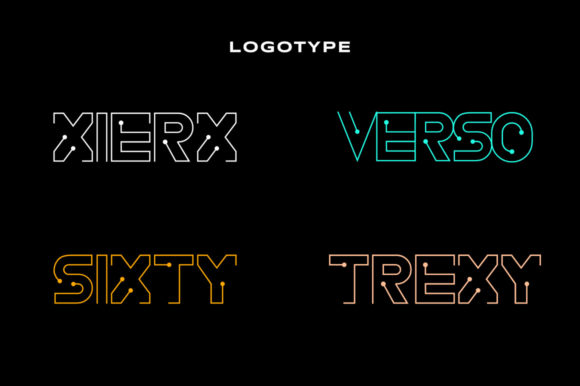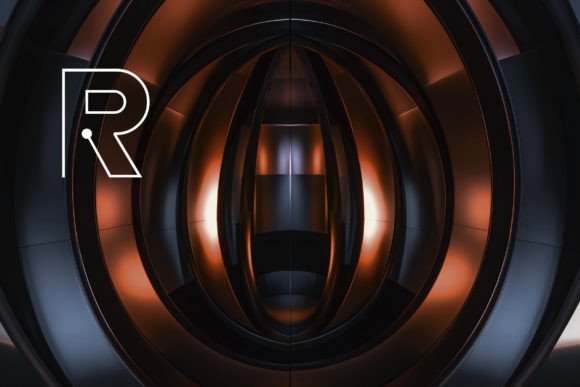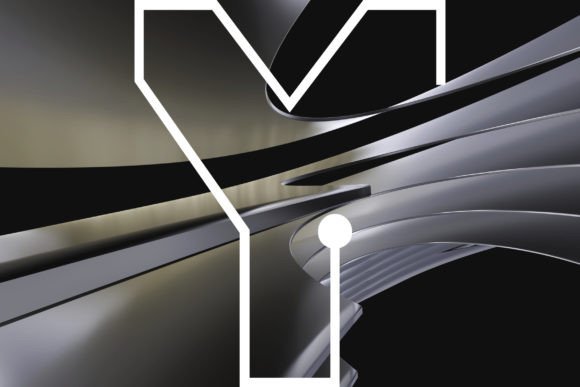
Introducing Exwayer Font: The Ultimate Techno Display Font for Modern Designers
In the world of digital design, typography plays a crucial role in making a lasting impression. With the vast array of fonts available, it can be challenging to find the perfect one that adds a unique touch to your project. However, if you’re looking for a cool and techno-looking display font, look no further than Exwayer Font. In this article, we’ll dive into the features and benefits of Exwayer Font, and explore how it can elevate your designs to the next level.
What is Exwayer Font?
Exwayer Font is a modern display font designed to add a touch of techno flair to your designs. Its sleek and futuristic appearance makes it ideal for writing web designs, business cards, or pretty much anything else that requires a unique touch. Whether you’re a designer, craftsperson, or DIY enthusiast, Exwayer Font is the perfect choice for those who want to make a statement.
Key Features of Exwayer Font
So, what makes Exwayer Font stand out from the rest? Here are some of its key features:
- Techno-inspired design: Exwayer Font boasts a futuristic design that’s perfect for modern designs that require a cutting-edge look.
- Display font: Exwayer Font is specifically designed as a display font, making it ideal for headlines, titles, and other attention-grabbing elements.
- Unique touch: With its distinctive design, Exwayer Font adds a unique touch to any project, setting it apart from more traditional fonts.
- Versatile: Exwayer Font can be used for a wide range of projects, from web designs and business cards to posters, flyers, and more.
Benefits of Using Exwayer Font
So, why should you choose Exwayer Font for your next project? Here are some benefits of using this amazing font:
- Adds a professional touch: Exwayer Font’s sleek design gives your project a professional and modern look that’s sure to impress.
- Enhances creativity: With its unique design, Exwayer Font inspires creativity and can help you think outside the box.
- Easy to read: Despite its futuristic design, Exwayer Font is easy to read, making it perfect for body text and headlines.
- Customizable: Exwayer Font can be customized to fit your project’s specific needs, allowing you to experiment with different colors, sizes, and styles.
How to Use Exwayer Font in Your Designs
Using Exwayer Font in your designs is easy. Here are some tips to get you started:
- Pair it with a simple font: Pair Exwayer Font with a simple font for body text to create a striking contrast.
- Experiment with colors: Try out different colors and gradients to give your design a unique look.
- Use it for headlines: Exwayer Font is perfect for headlines and titles, so don’t be afraid to use it to grab attention.
- Add a techno touch: Use Exwayer Font to add a techno touch to your design, whether it’s a futuristic logo or a modern website.
In conclusion, Exwayer Font is a cool and techno-looking display font that’s perfect for modern designers and craftspersons. Its unique design, versatility, and ease of use make it an excellent choice for a wide range of projects. Whether you’re looking to add a professional touch or enhance your creativity, Exwayer Font is the perfect choice. So why wait? Download Exwayer Font today and take your designs to the next level!